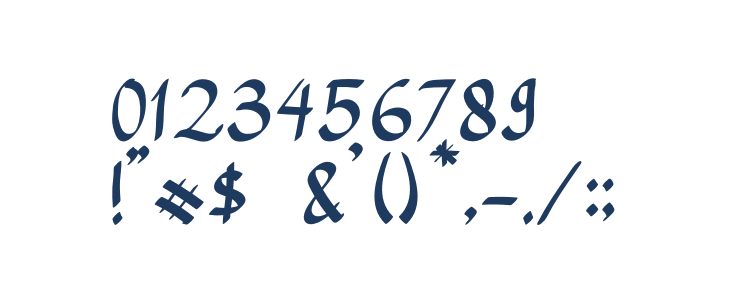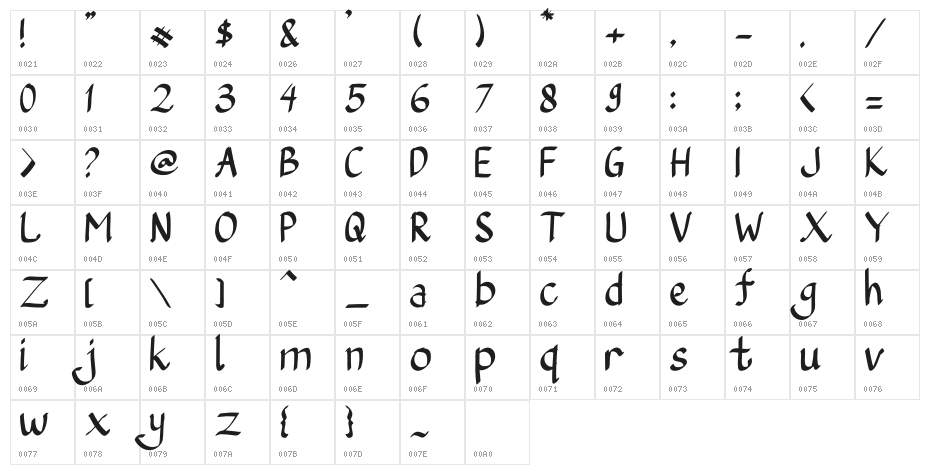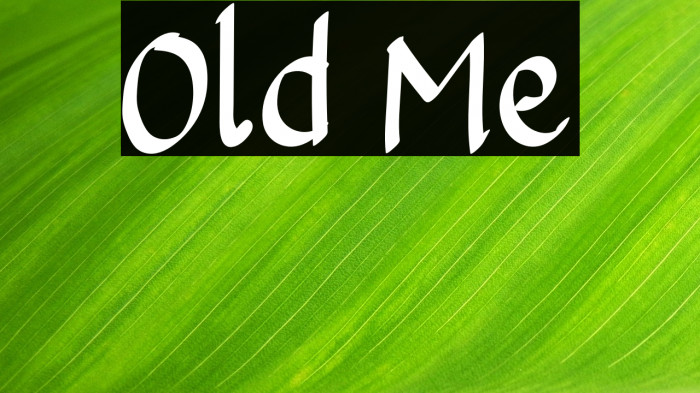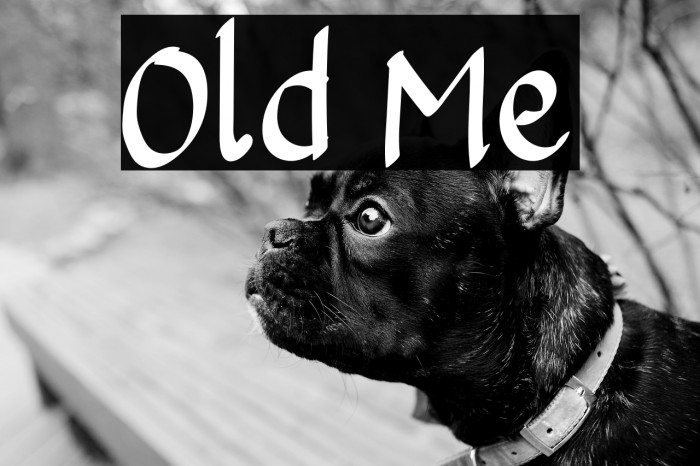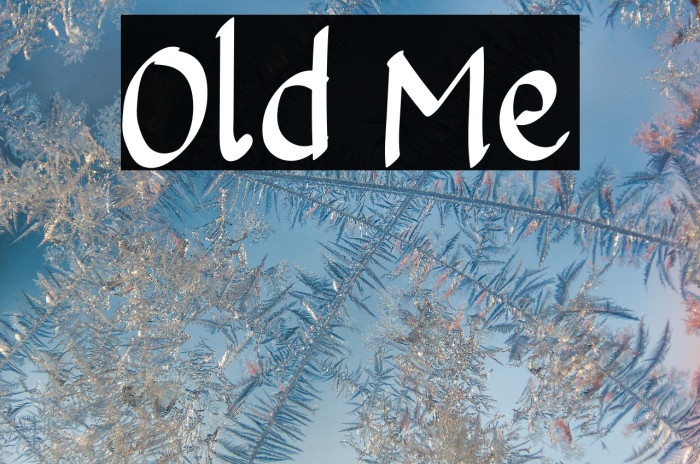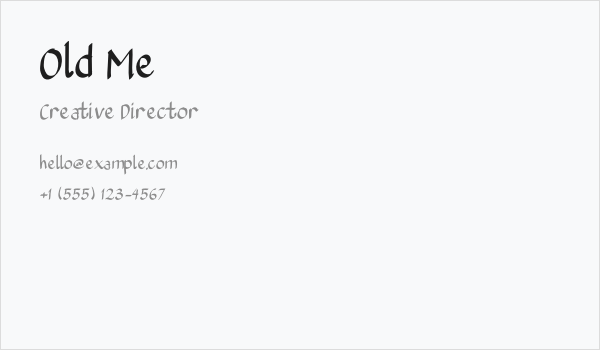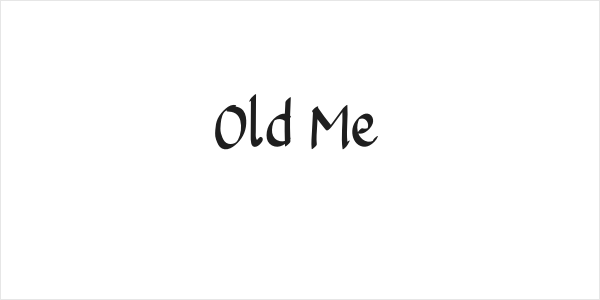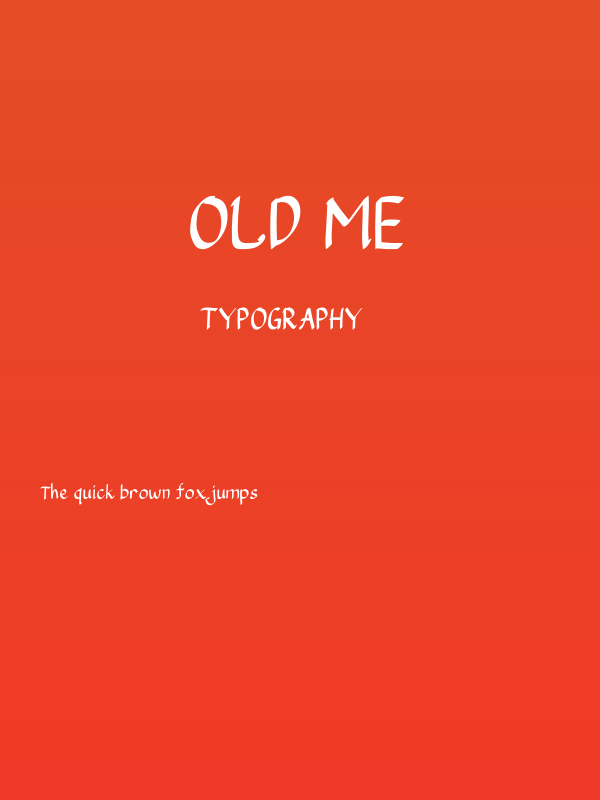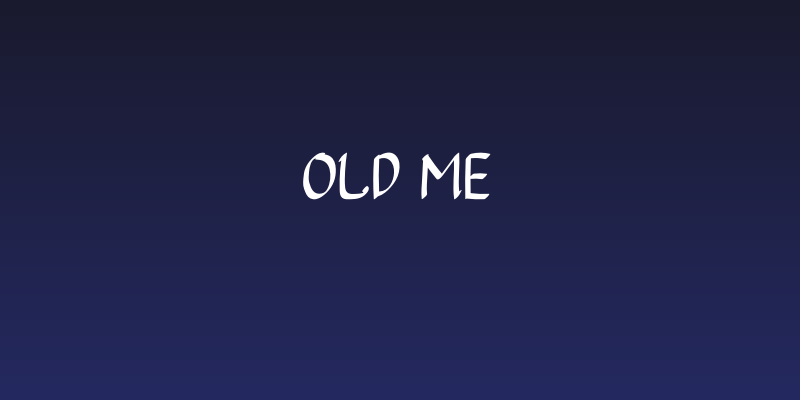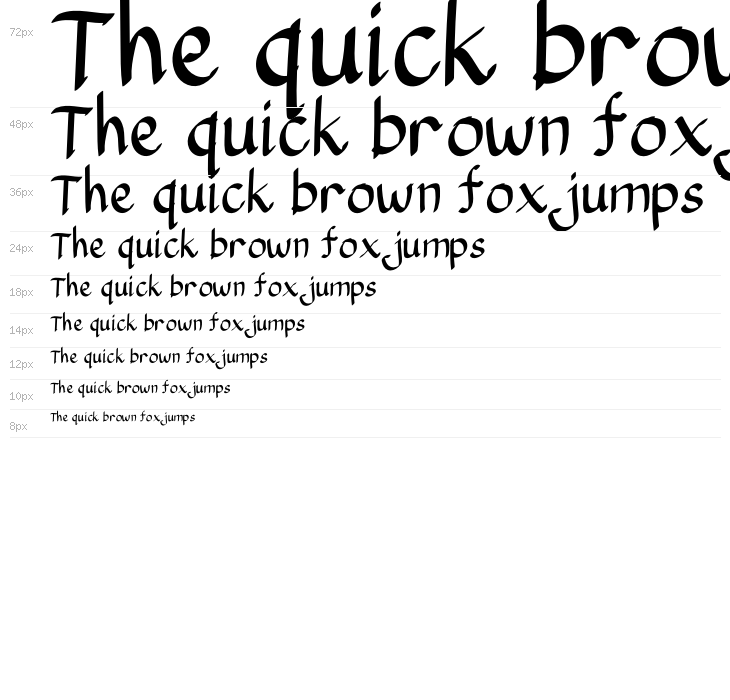
Old Me Font
Old Me Description
This font exhibits a unique blend of calligraphic and modern styles, characterized by its fluid and dynamic strokes. The uppercase letters are bold and slightly angular, giving them a strong presence, while the lowercase letters maintain a more rounded and flowing appearance. The numerals are distinct and easy to read, with a slight slant that adds to the overall dynamic feel. Special characters are crafted with the same attention to detail, ensuring consistency throughout the typeface. The font's playful yet sophisticated style makes it versatile for various design applications.
| Proposed Projects | Ideal for branding, invitations, posters, and creative projects that require a touch of elegance and personality. |